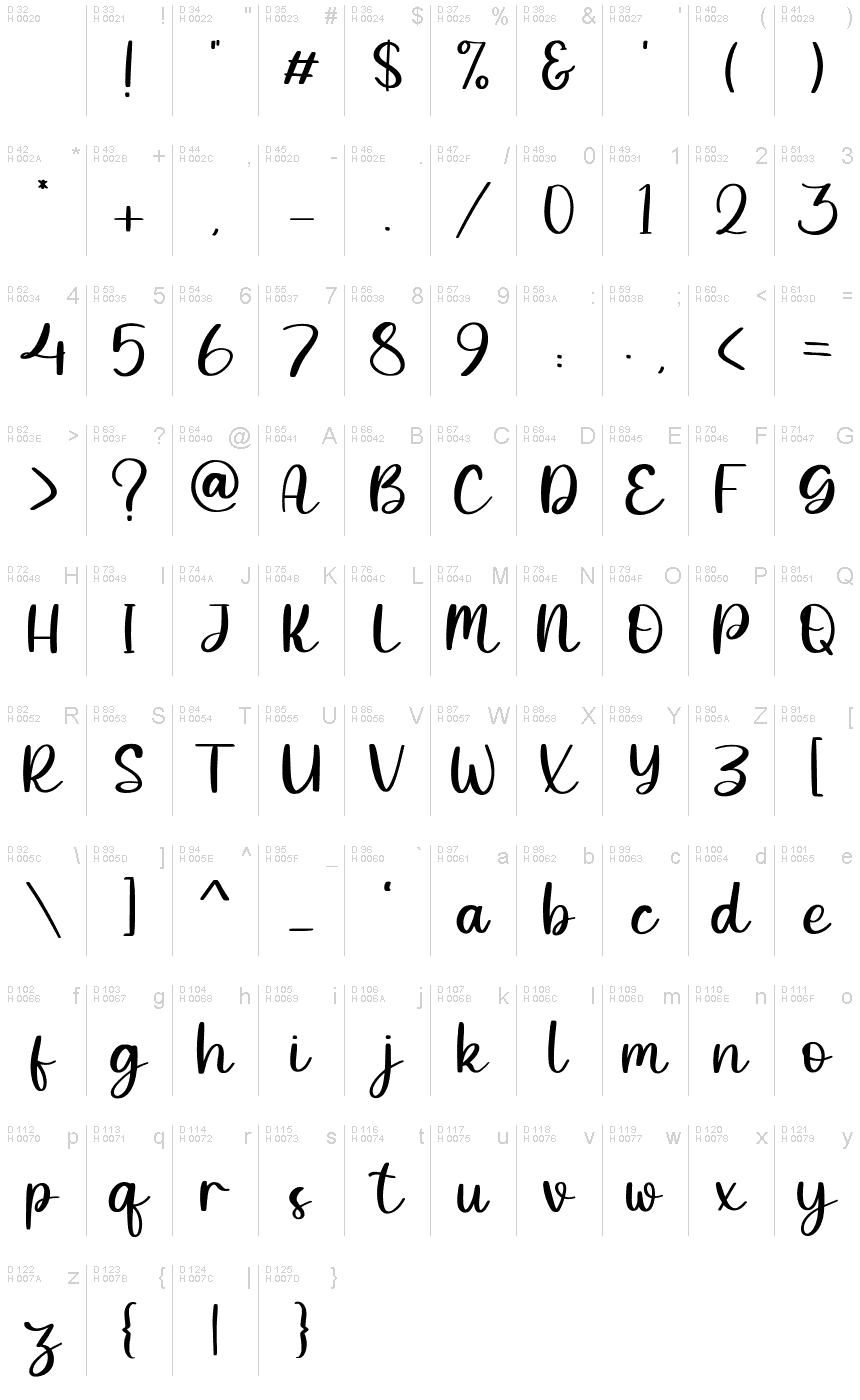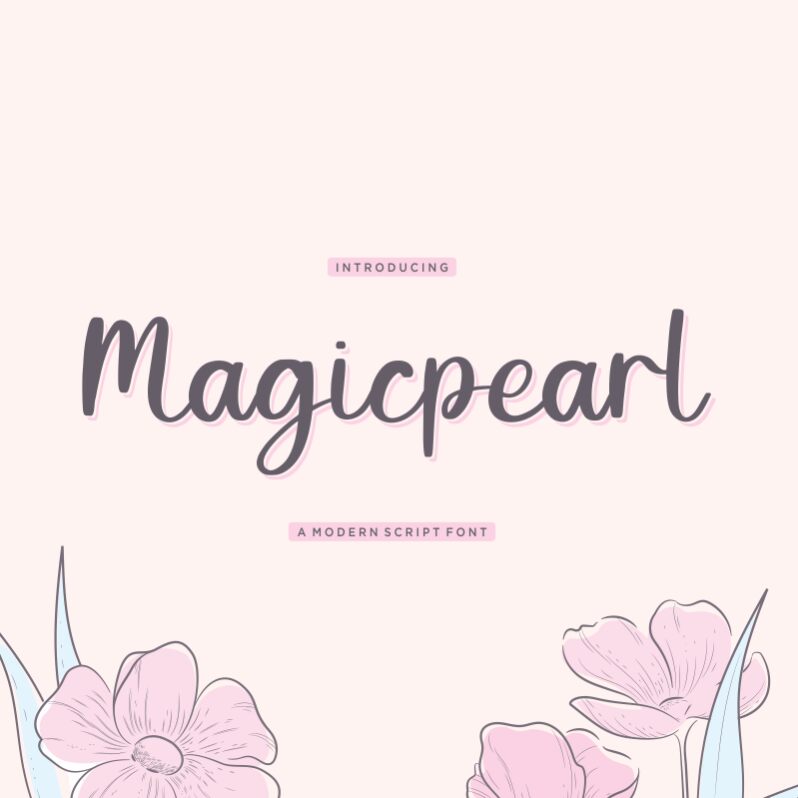
Magicpearl
Introducing Magicpearl, a beautiful modern script font designed by Qwrtype Foundry. Its light weight and flowing curves make it perfect for projects that require elegance and sophistication, such as wedding invitations, greeting cards, or branding materials. Use it to add a touch of grace to your designs, or to create a sense of beauty and charm. Magicpearl is the perfect font for anyone looking to add a touch of magic to their work.